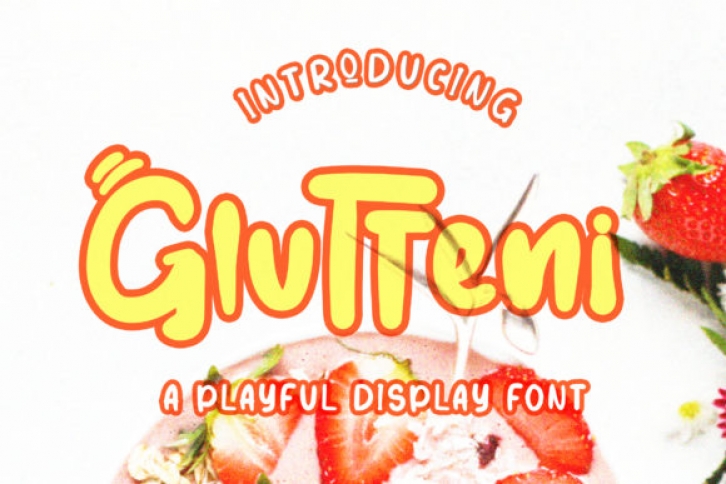
Glutteni is a gorgeous playful display font, that will make each of your creative ideas stand out! Its casual charm makes it appear wonderfully down-to-earth, and incredibly versatile. Glutteni will look outstanding in any context, whether it’s being used on busy backgrounds or as a standalone headline.